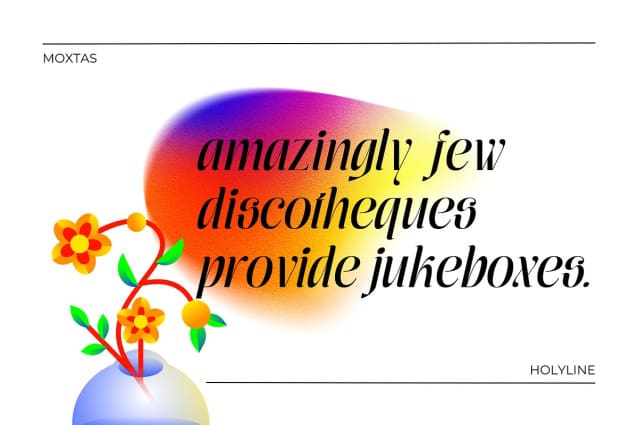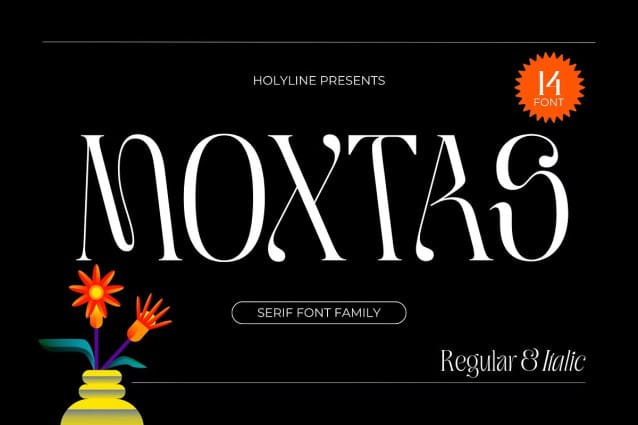
Moxtas Font Family
Moxtas Font Family by Holyline, Moxtas is a retro serif font family, This font very elegant and unique comes in seven weight with italic. It’s very unique, playful, elegant and very easy to combine with your design style. Moxtas perfect for headline, sub headline ,custom logo,packaging, quote, invitations, watermark,social media posts, label, anything for your creativity and Moxtas Font is perfect font if you want something new with your project, you can play the 14 font style, and you can pairing this font with the weight, its very satisfy.